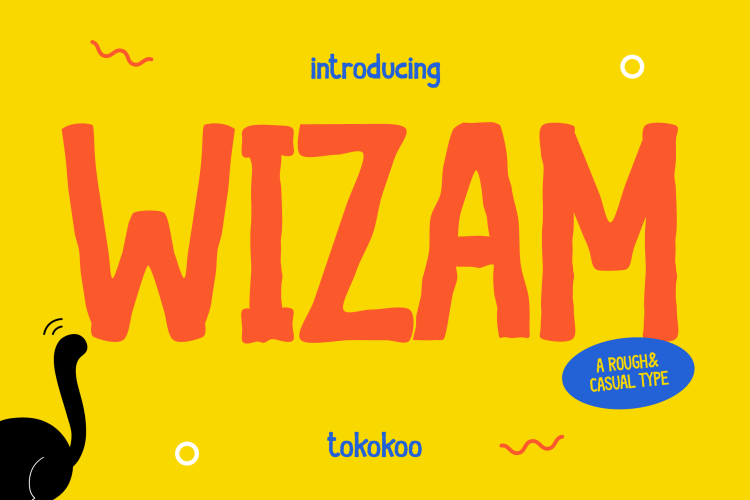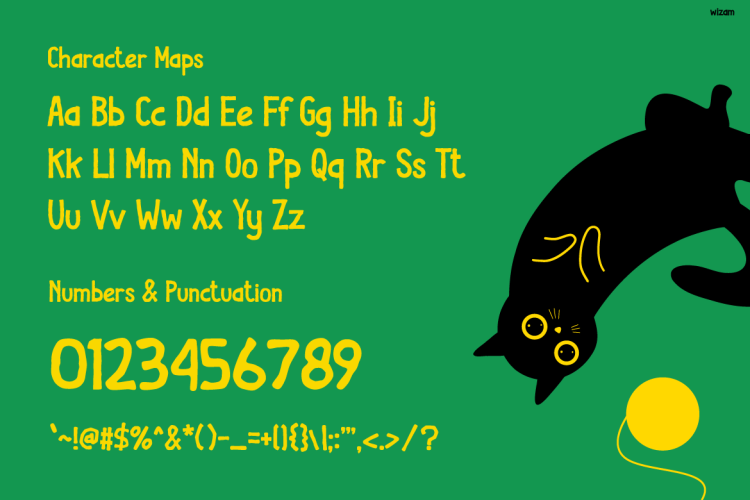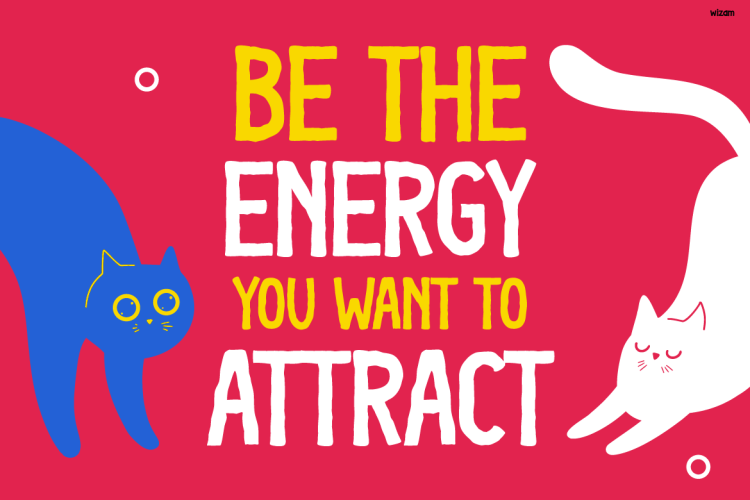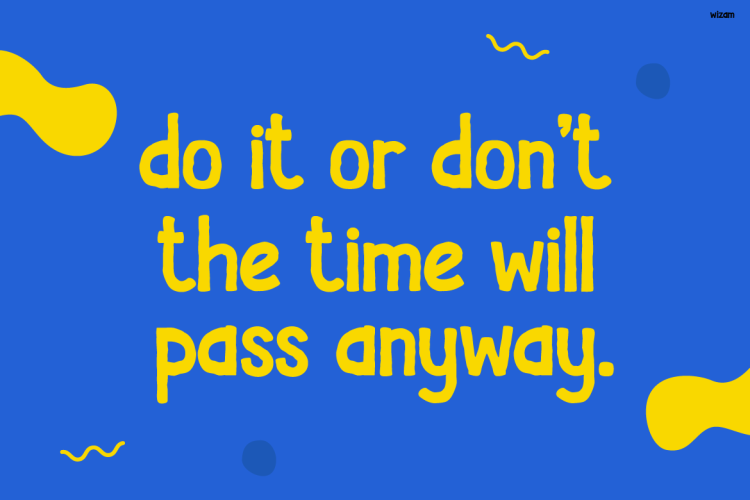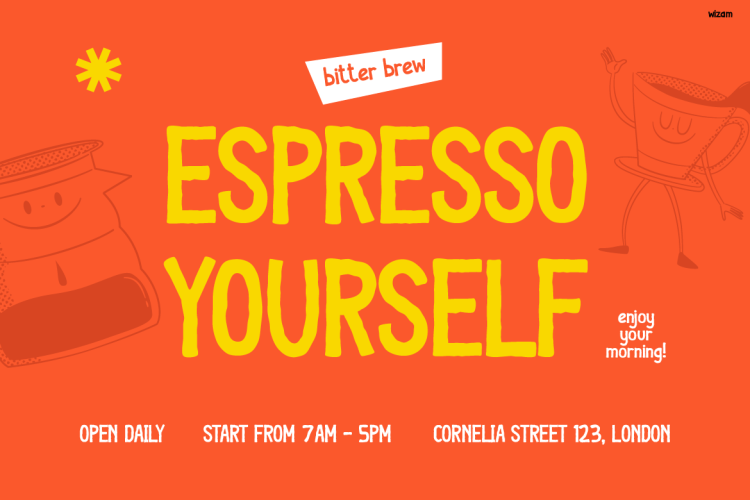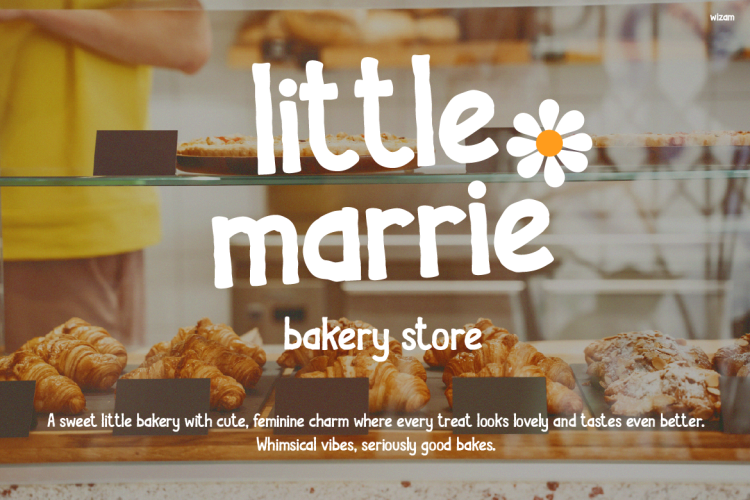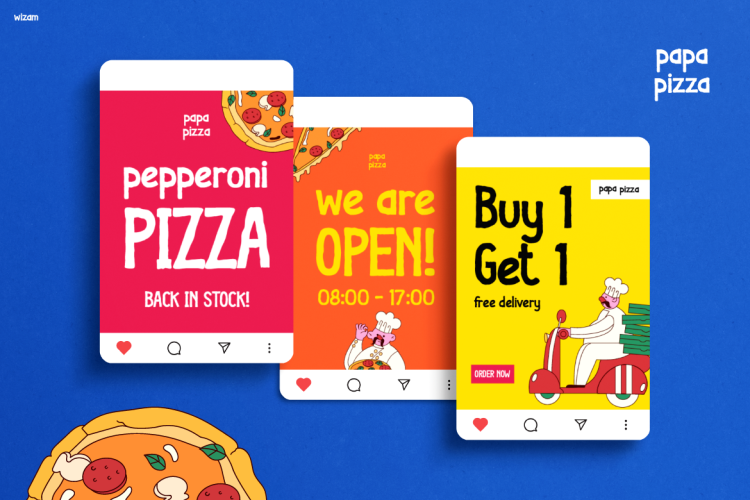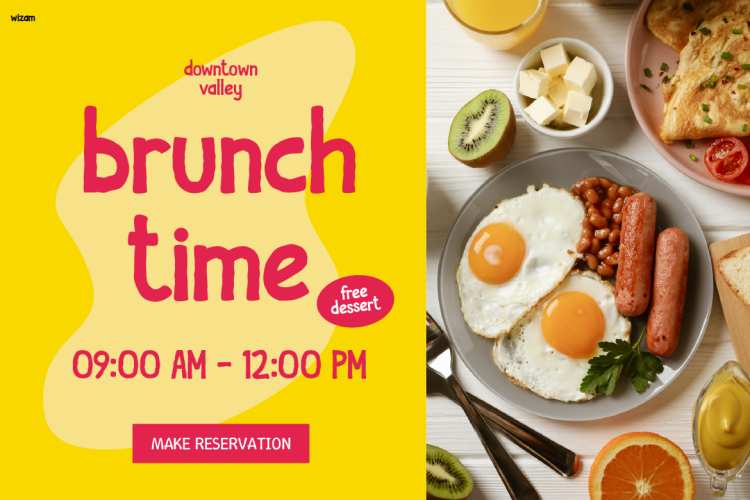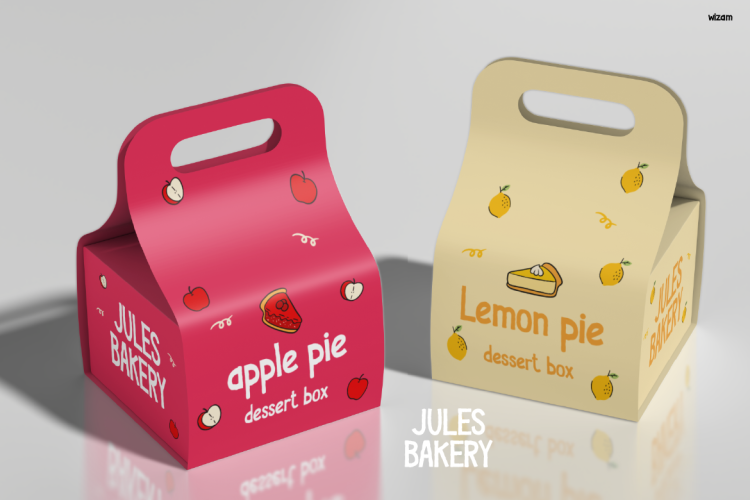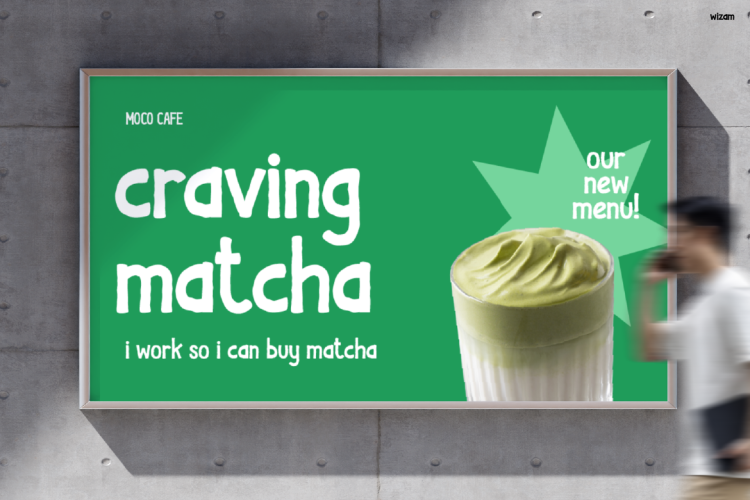
Kids Font WIZAM โ Playful Energy for Every Design!
Kids Font WIZAM is where imagination and creativity collide! This delightful typeface bursts with personality, bringing a wave of color, laughter, and warmth to every design it touches. With its hand-drawn style, slightly irregular forms, and expressive movement, WIZAM feels spontaneous yet thoughtful. Each curve tells a story, while every line adds character and energy. As a result, your projects instantly gain a friendly and inviting tone that draws people in.
Moreover, the fontโs bold and rounded edges make it easy to read, even from a distance. Whether youโre designing posters, packaging, or educational materials, WIZAM gives your work a cheerful and approachable vibe. Its imperfect yet balanced shapes evoke a sense of playfulnessโperfect for modern brands that want to stay fun, youthful, and original. Additionally, the bright colors and casual lettering style help it stand out in both print and digital media, ensuring your message pops with charm and confidence.
Kids Font WIZAM is ideal for designers, educators, and small business owners who want to infuse happiness and excitement into their creations. Whether youโre working on childrenโs products, bakery branding, cafรฉ menus, or playful social media posts, this font adapts beautifully. It works wonderfully for teachers creating classroom materials, illustrators designing kidsโ books, or marketers crafting light-hearted advertisements.
Furthermore, WIZAM shines when paired with vivid backgrounds, joyful illustrations, or whimsical patterns. Itโs especially useful for businesses that rely on friendliness and approachabilityโlike toy stores, dessert shops, and event planners. No matter how you use it, this font transforms your content into something truly engaging, full of character and positive emotion.
Bring Your Designs to Life
In short, Kids Font WIZAM is more than just a typefaceโitโs an experience! It adds warmth, liveliness, and a creative spark that makes every design memorable. So, why settle for ordinary when you can express joy through your typography? Choose WIZAM today, and let your words bounce, dance, and smile. With its playful rhythm and versatile personality, your next project will not only stand out but also spread pure happiness wherever it goes.